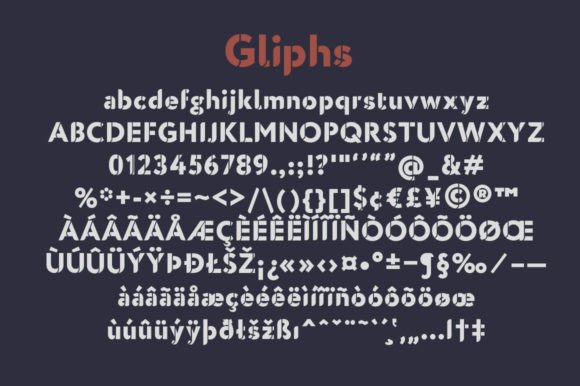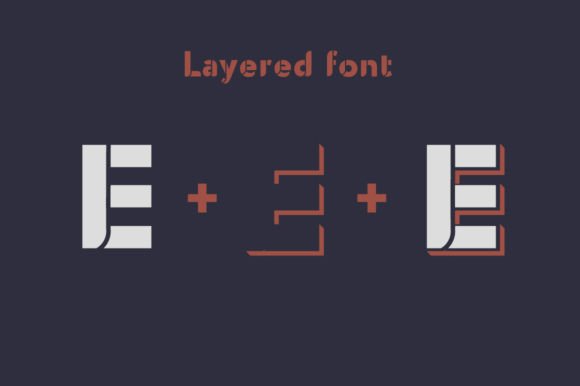
The Perfect Font for Your Next Design Project: Engine Font
I’ll never forget the design project that led me to discover the amazing Engine font. I was working on a vintage-themed poster for a client’s antique shop, and I was struggling to find the right font. I wanted something that would evoke a sense of nostalgia and charm, but still be readable and versatile. That’s when I stumbled upon Engine, a cool, vintage-style display font that instantly captured my attention.
First Impressions: A Love at First Sight
Engine font is a game-changer. Its unique charm makes it appear wonderfully down-to-earth, readable, and, ultimately, incredibly versatile. The font comes with a base layer and a shadow layer, which can be used separately or combined to create a stunning effect. Whether you’re using it on busy backgrounds or as a standalone headline, Engine font is sure to make your design stand out.
What I Love About Engine Font
- ✨ Unique vintage charm that’s perfect for retro-themed designs
- ✅ Highly readable, even at smaller font sizes
- ✅ Incredibly versatile, works well on busy backgrounds or as a standalone headline
- ✅ Comes with a base layer and a shadow layer for added flexibility
While Engine font is amazing, it’s not perfect. Here are a few things to keep in mind:
- 🤔 The font can be a bit overused, so be sure to use it sparingly to avoid clichés
- ⚠️ The shadow layer can be a bit tricky to work with, especially if you’re new to using OpenType features
The Story Behind Engine Font
Engine font was designed by a team of talented typographers who wanted to create a font that would evoke a sense of nostalgia and charm. The font is inspired by classic vintage fonts from the early 20th century, but with a modern twist. The designers wanted to create a font that would be versatile and readable, while still having a unique and distinctive personality.
| Font Name | Engine Font |
| Author | Fractal font factory |
Q: What is Engine font?
Engine font is a cool, vintage-style display font containing a base layer and a shadow layer.